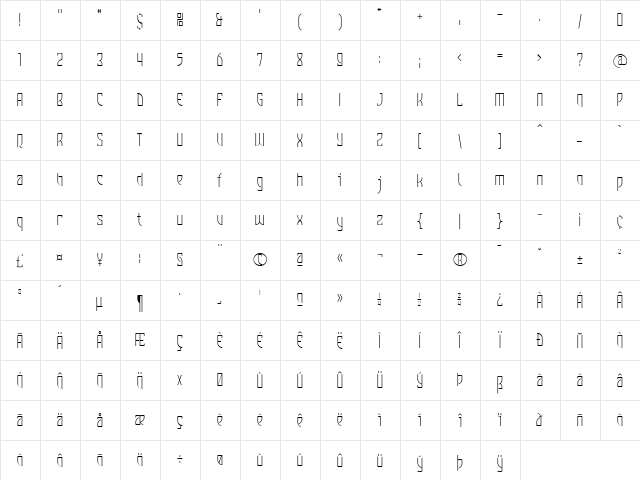
Komunique Light
Design Context for Komunique Typeface
Komunique takes a measured approach to typography — its balanced proportions and neutral character make it a reliable workhorse for both digital and print work. Its slender proportions lend an understated elegance to any composition.